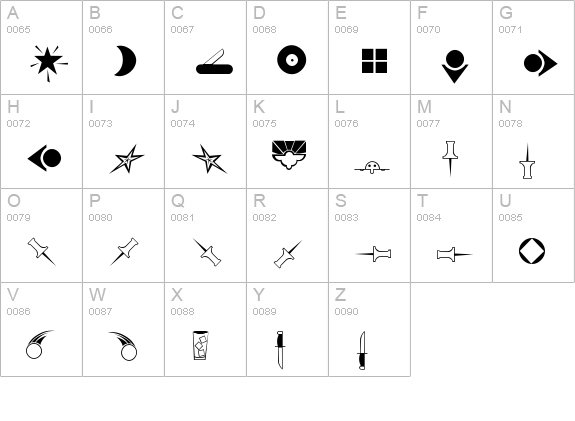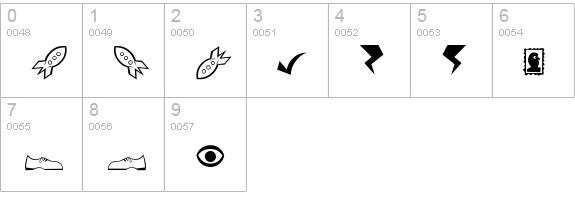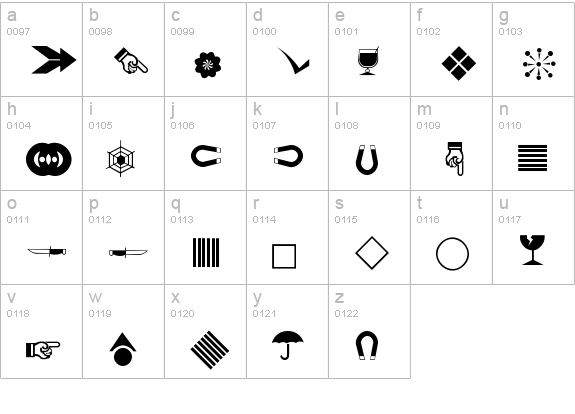
Bills Dingbats Font Details
Bills Dingbats font is a whimsical and playful typeface that is perfect for adding a touch of fun and creativity to your designs. This unique font features a variety of quirky symbols and icons that can be used to enhance your projects with a touch of charm and personality. Whether you're creating invitations, posters, or social media graphics, Bills Dingbats font is sure to make your designs stand out. The best part? Bills Dingbats font is completely free to download at FontsMarket.com! Simply visit the website and grab this delightful font to add a touch of whimsy to your next project. With Bills Dingbats font, the possibilities are endless, so let your creativity run wild and have fun experimenting with this charming typeface.